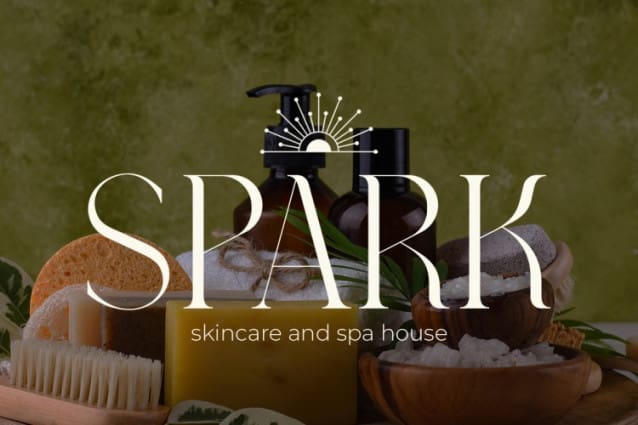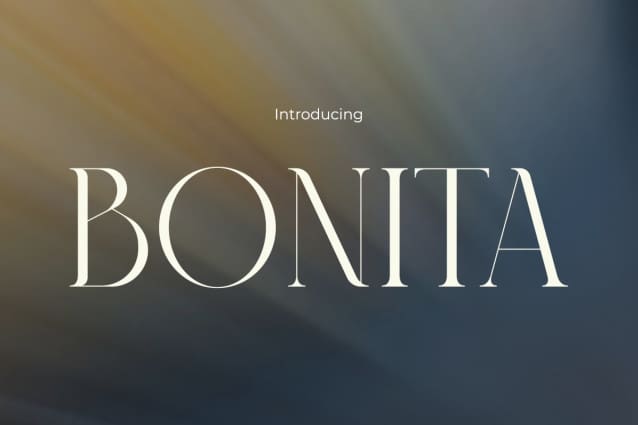
Bonita Font
Bonita Font, where fashion meets allure in every curve and line. This font embodies the essence of sophistication, sexiness, and elegance, making it the ultimate choice for designers seeking to infuse their projects with a touch of haute couture glamour. With its sleek and stylish design, Bonita Font adds a sense of allure and sophistication to any fashion-related project, whether it’s a chic magazine layout, a glamorous advertisement, or a trendy logo for a high-end brand.
Each letter is meticulously crafted to exude confidence and sophistication, ensuring that your designs captivate and inspire. Bonita Font effortlessly combines the elements of fashion, sexiness, and elegance into a single typeface. Its smooth and flowing lines evoke a sense of sensuality, while its bold and elegant strokes command attention. Whether you’re designing for a runway show, a luxury fashion brand, or a high-end beauty campaign, Bonita Font will elevate your designs to new heights of sophistication and style. With its irresistible charm and timeless appeal, Bonita Font is the perfect choice for designers who want to make a bold statement in the world of fashion and luxury.